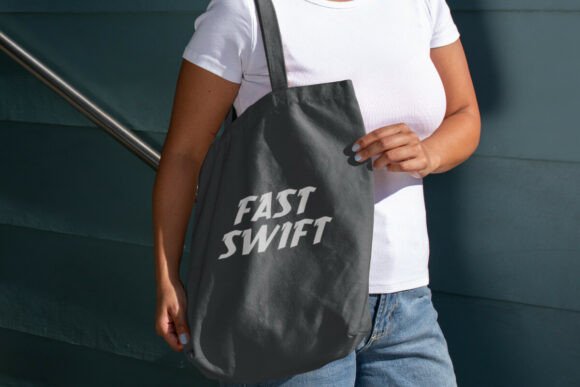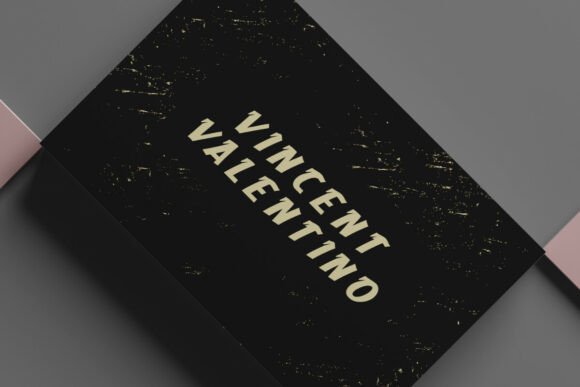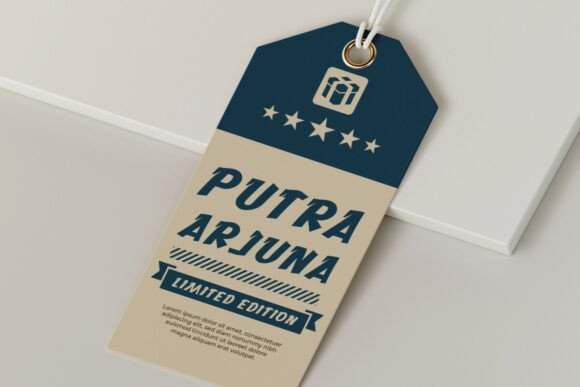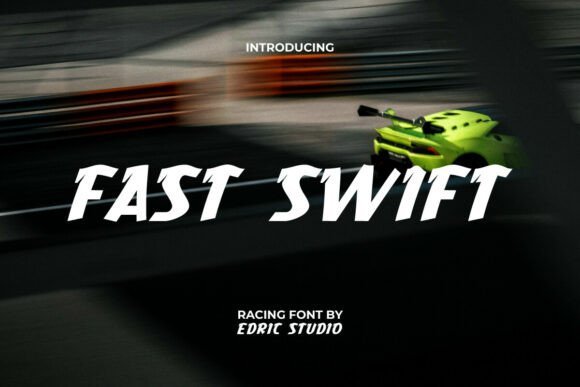
Introduction to Fast Swift Font
Ignite a sense of adrenaline with the Fast Swift font, a high-octane racing typeface built for speed.
Featuring sharp, aggressive angles and a forward-leaning slant, this Fast Swift typeface captures the essence of motion and competitive energy It is the ultimate choice for sports branding, automotive logos, and gaming interfaces where power is the priority.
Key Features of Fast Swift Font
Why Choose Fast Swift Font?